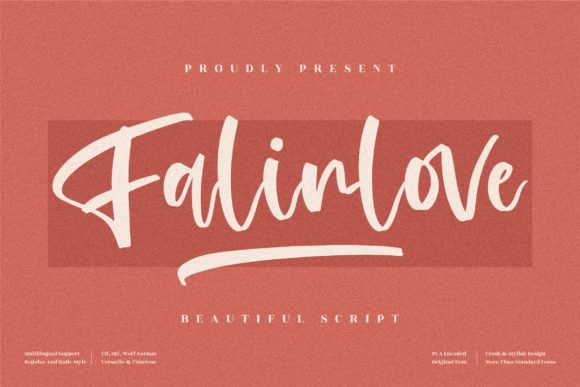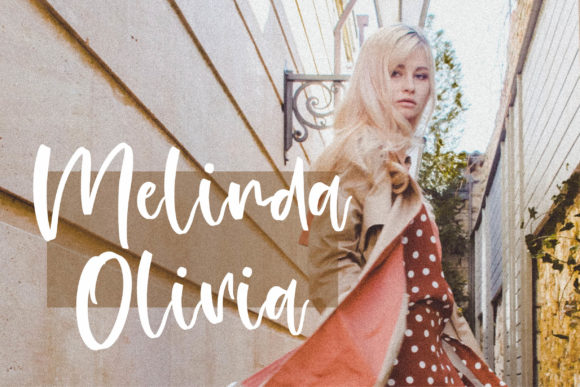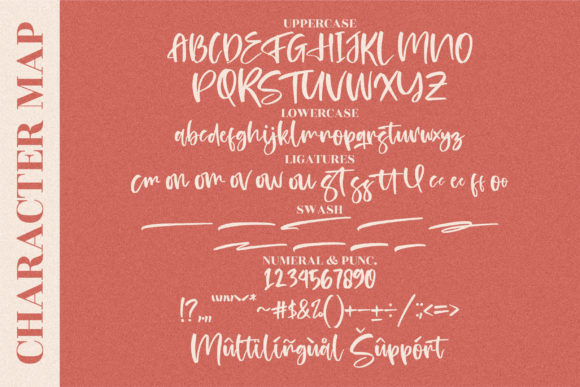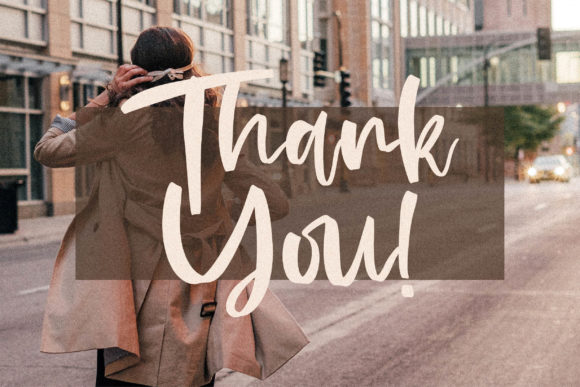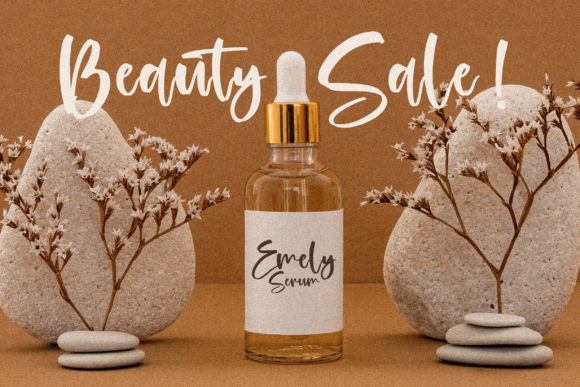
About Falinlove Font
Falinlove is a laid-back and adaptable script font. Whatever the topic, this font will be a wonderful asset to your font library, as it has the potential to enhance any creation.